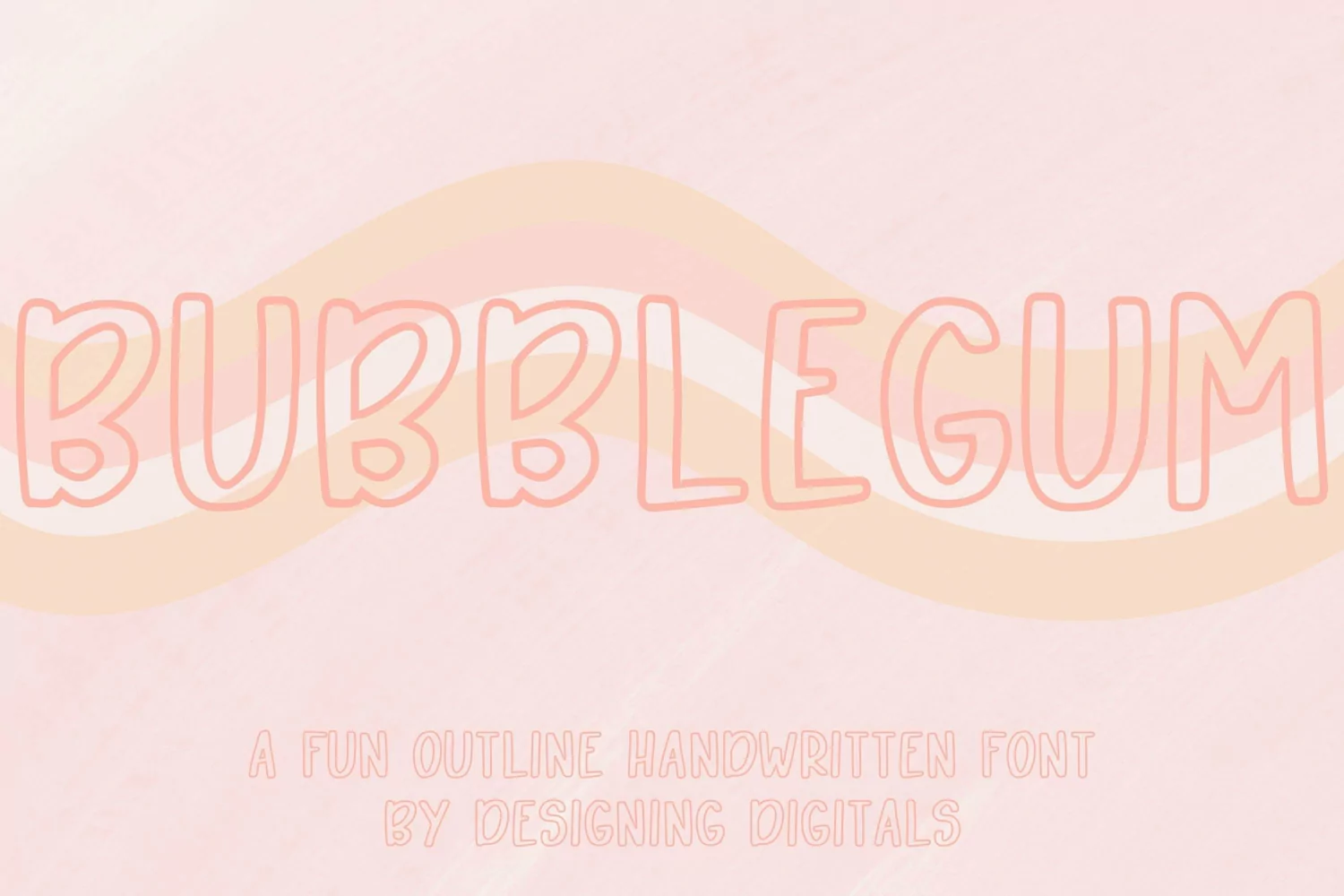
Bubble gum is a fun, bubbly, outline sans-serif font is perfect for fun logos, greeting cards, t-shirt design, stickers, social media, and any craft or project. Pair it with the solid Campfire font for a fun, multi-colored outlined style!